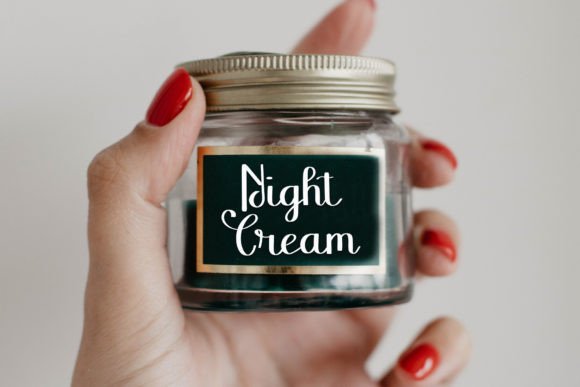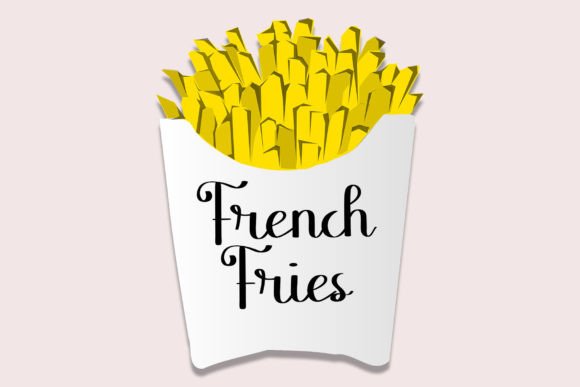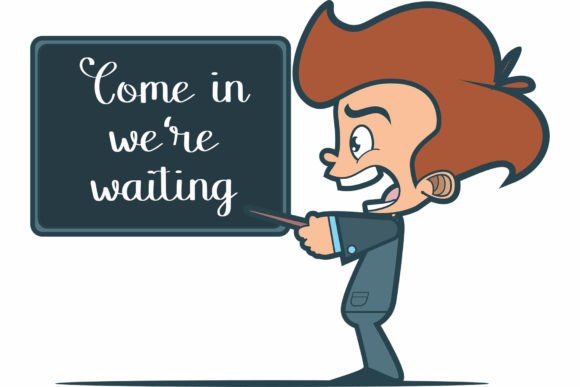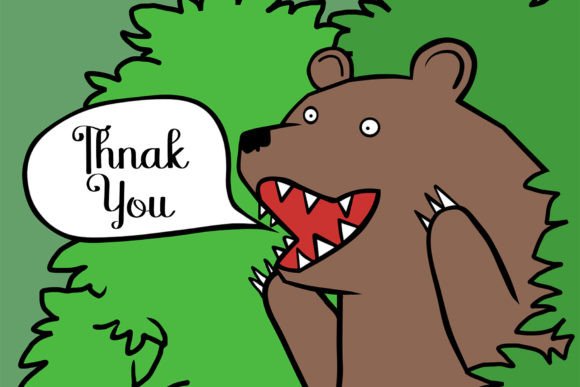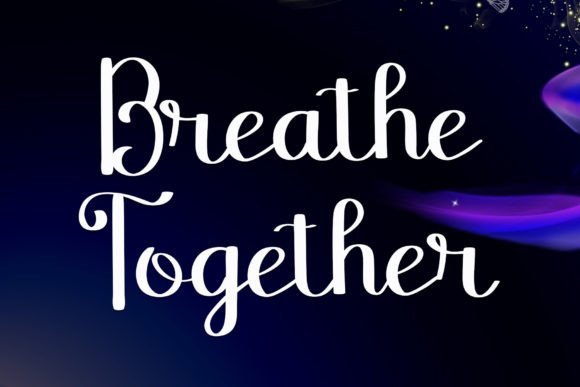
When Words Come Alive
As you sit down to craft the perfect invitation, a business card that stands out, or a logo that captures the essence of your brand, you know the importance of choosing the right font. It’s the difference between a message that falls flat and one that sparks a connection. For designers, the quest for the perfect font is a never-ending journey, and that’s where the Breathe Together Font comes in – a unique and elegant font that brings a handwritten touch to your designs.
This versatile font is perfect for wedding invitations, greeting cards, billboards, logos, business cards, and any other design that requires a touch of personality. With its varied baseline and natural, hand-made feel, the Breathe Together Font creates spectacular creations that make your ideas look more real. Whether you’re a seasoned designer or just starting out, this font is a valuable addition to your toolkit.
Breathe Together Font Key Features
- Font Family: Breathe Together
- Unique Characteristics: Unique blend of modern and minimalist design elements, with a focus on breathing room and negative space
Breathe Together Font Review
First off, I love the unique feel of the Breathe Together Font. The font’s playful yet elegant nature makes it a great choice for a variety of projects ✨. The font’s rounded edges and subtle curves give it a friendly and approachable vibe that’s perfect for designs that need a bit of warmth and personality.
The font’s versatility is another major selling point. It works well in both digital and print applications, making it a great choice for anyone looking for a font that can adapt to different mediums ✨. The font also comes in a range of weights and styles, from light to bold, which makes it easy to find the perfect fit for your design.
One of the main limitations of the Breathe Together Font is its lack of uniqueness in certain contexts. While the font’s playful nature is a major asset, it can also make it feel a bit too “cute” or overused in certain situations ⚠️. Additionally, the font’s rounded edges can make it difficult to read at very small sizes, which may be a limitation for designers who need to use the font in small text applications.
Overall, I think the Breathe Together Font is a solid choice for designers who are looking for a versatile and unique font. While it may have some limitations, its playful and elegant nature makes it a great addition to any design project.
- Unique and playful design
- Works well in both digital and print applications
- Range of weights and styles
- May feel too “cute” or overused in certain situations
- Can be difficult to read at very small sizes
Common use cases for the Breathe Together font include:
– Social media graphics and advertisements
– Emotional and empathetic content, such as mental health awareness campaigns
– Use a bold and playful approach to make your content stand out.